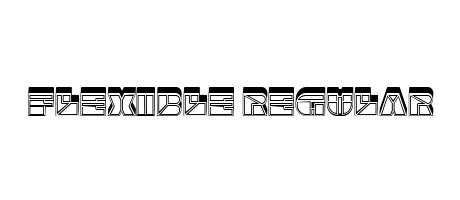
Flexible
Flexible Regular is a bold, geometric sans-serif font. Its chunky letterforms feature a striking multi-layered design, creating a sense of depth and dimension. The sharp lines and strong contrast between black and white give it a futuristic, almost robotic feel. It conveys a sense of power and modernity.